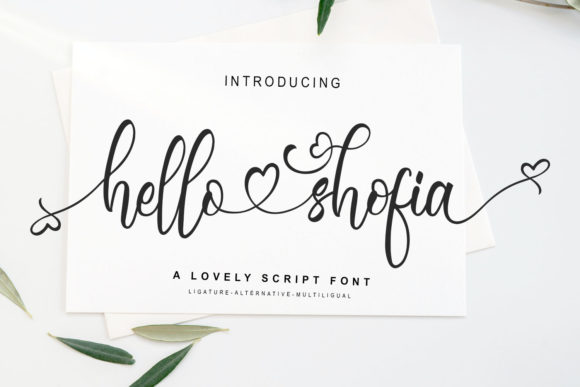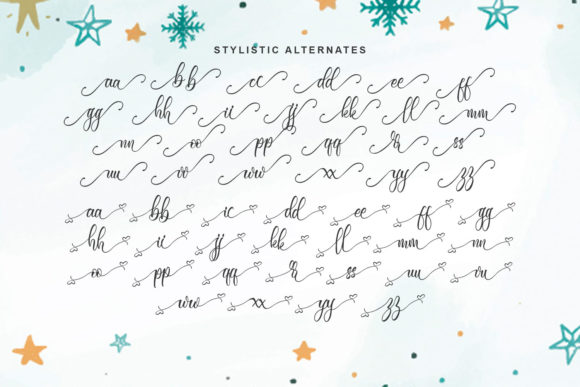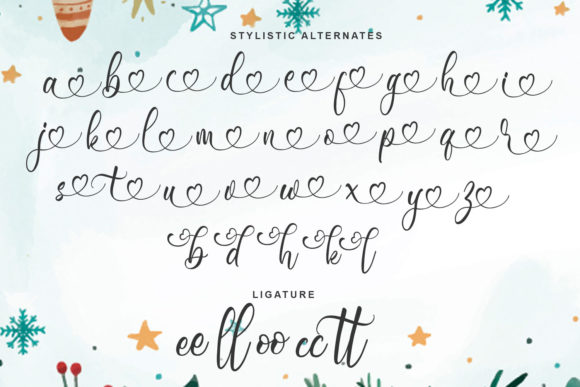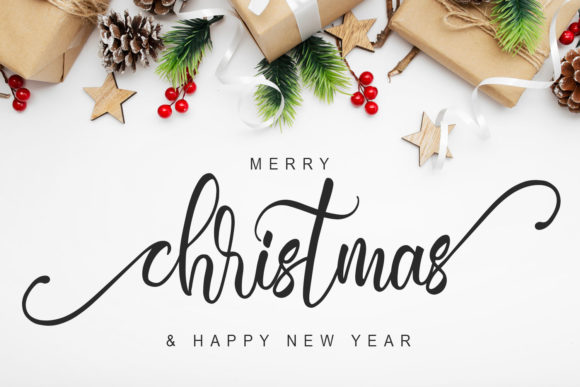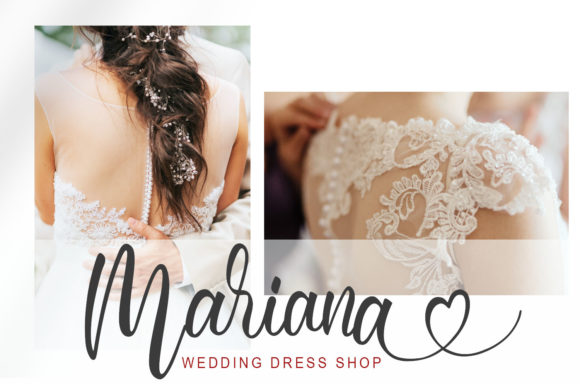
Hello Shofia Font
About Hello Shofia Font
Hello Shofia is a sweet and cursive handwritten font. This gentle font will look gorgeous on a variety of design ideas. It will add a joyful and romantic touch to each of your projects!